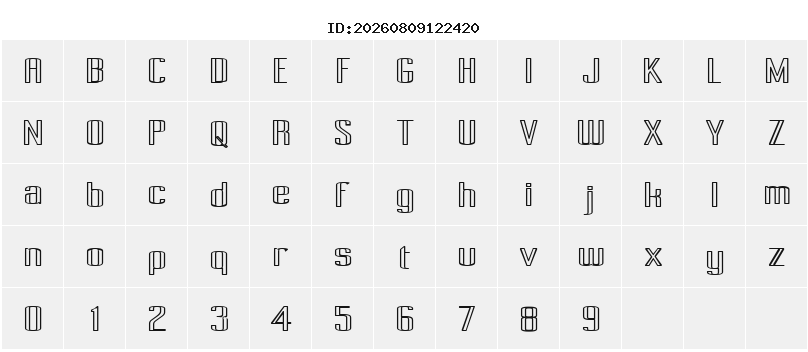
About Pecot Outline Bold.ttf
Pecot Outline Bold.ttf is a modern, elegant sans-serif font designed for ultimate readability and visual harmony. Perfect for branding, headlines, web design, and print materials.